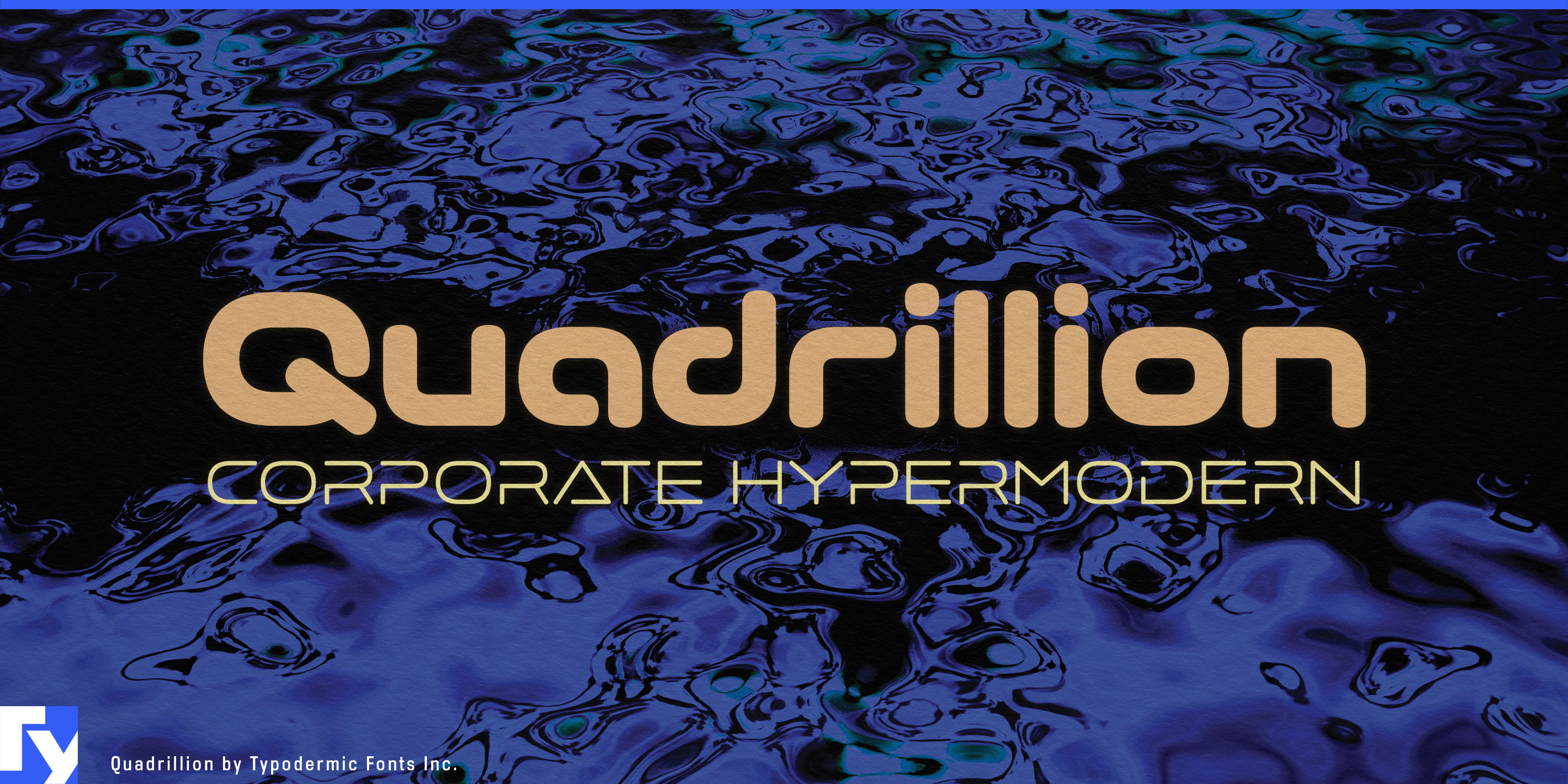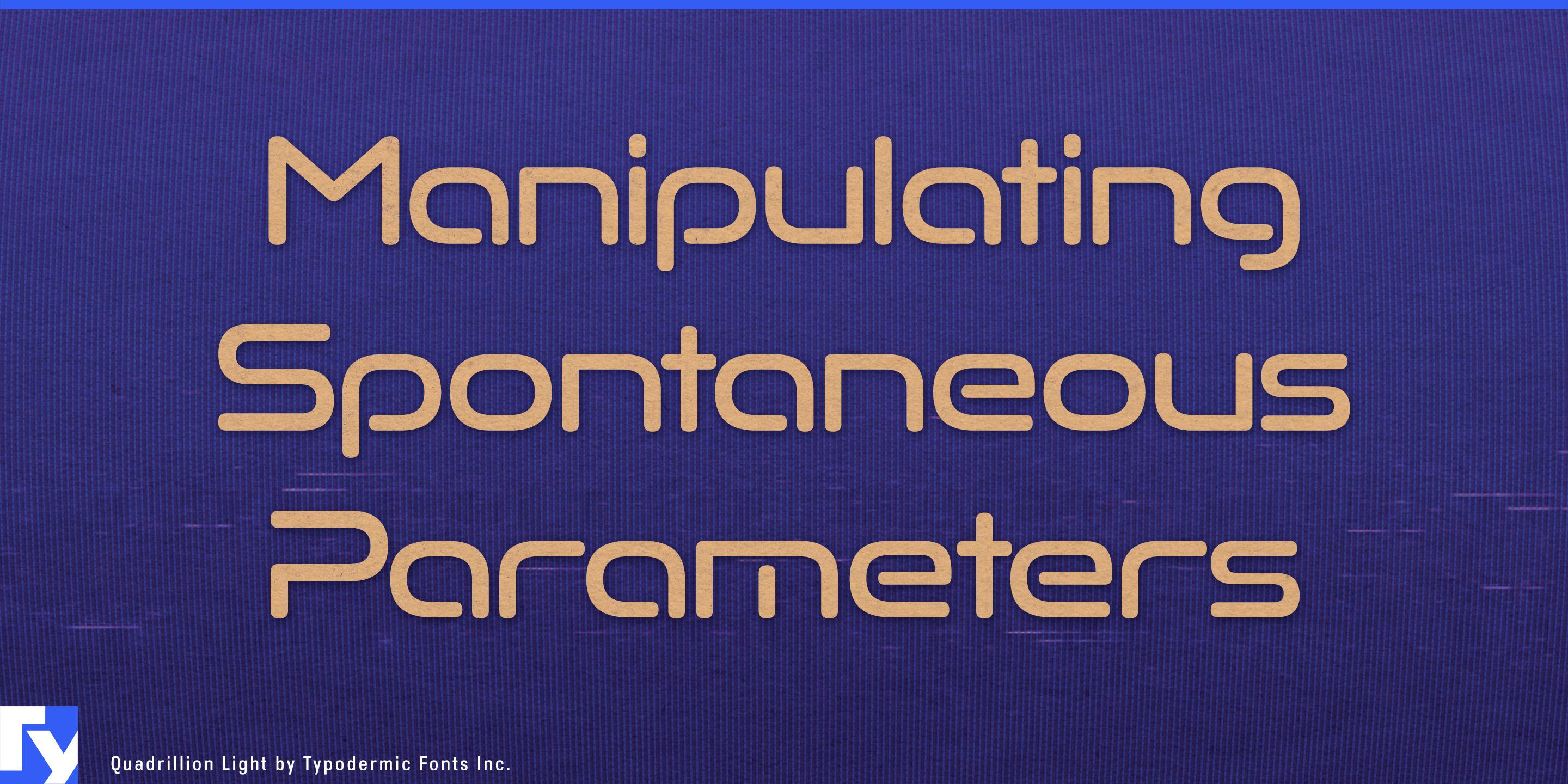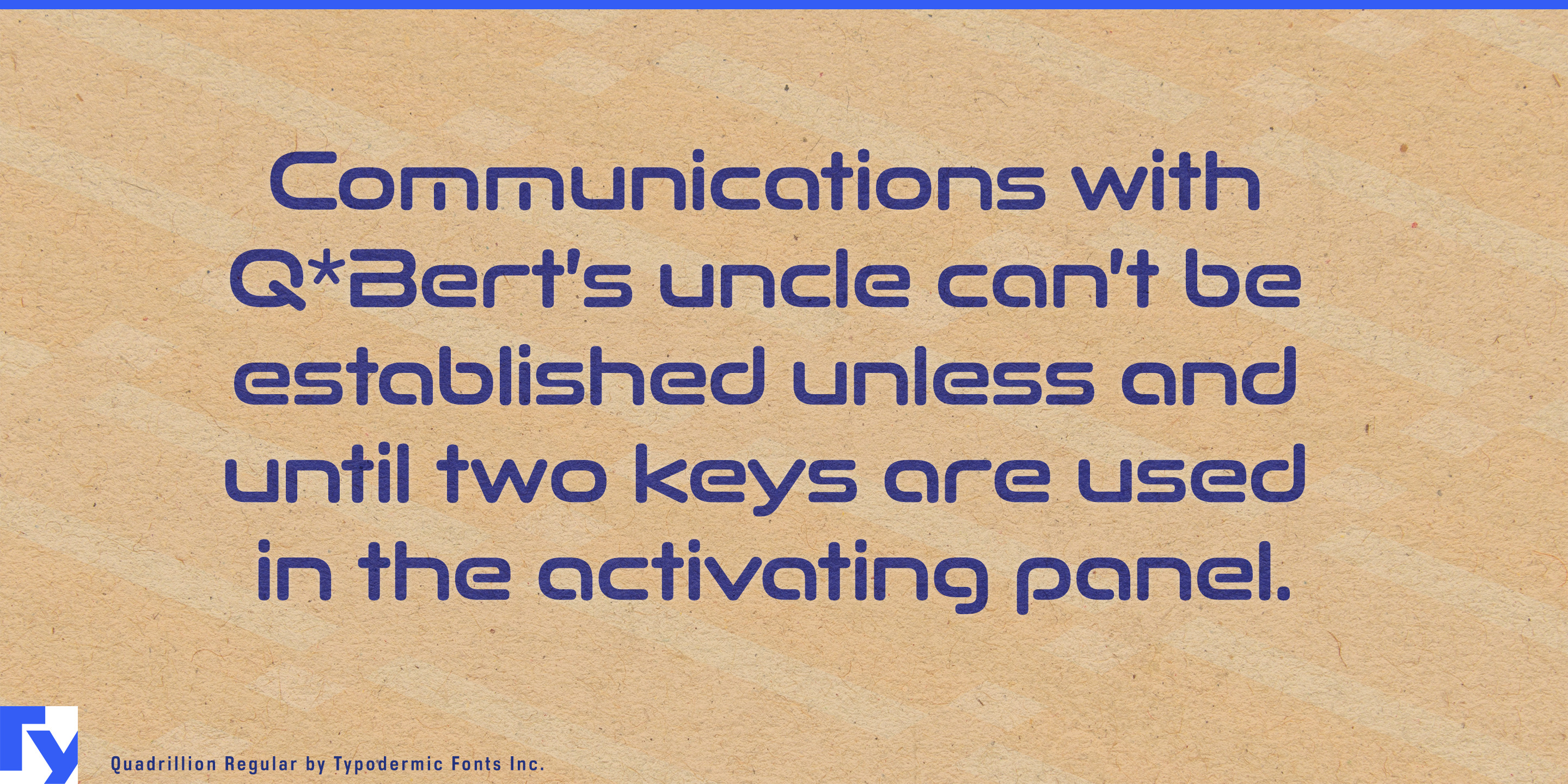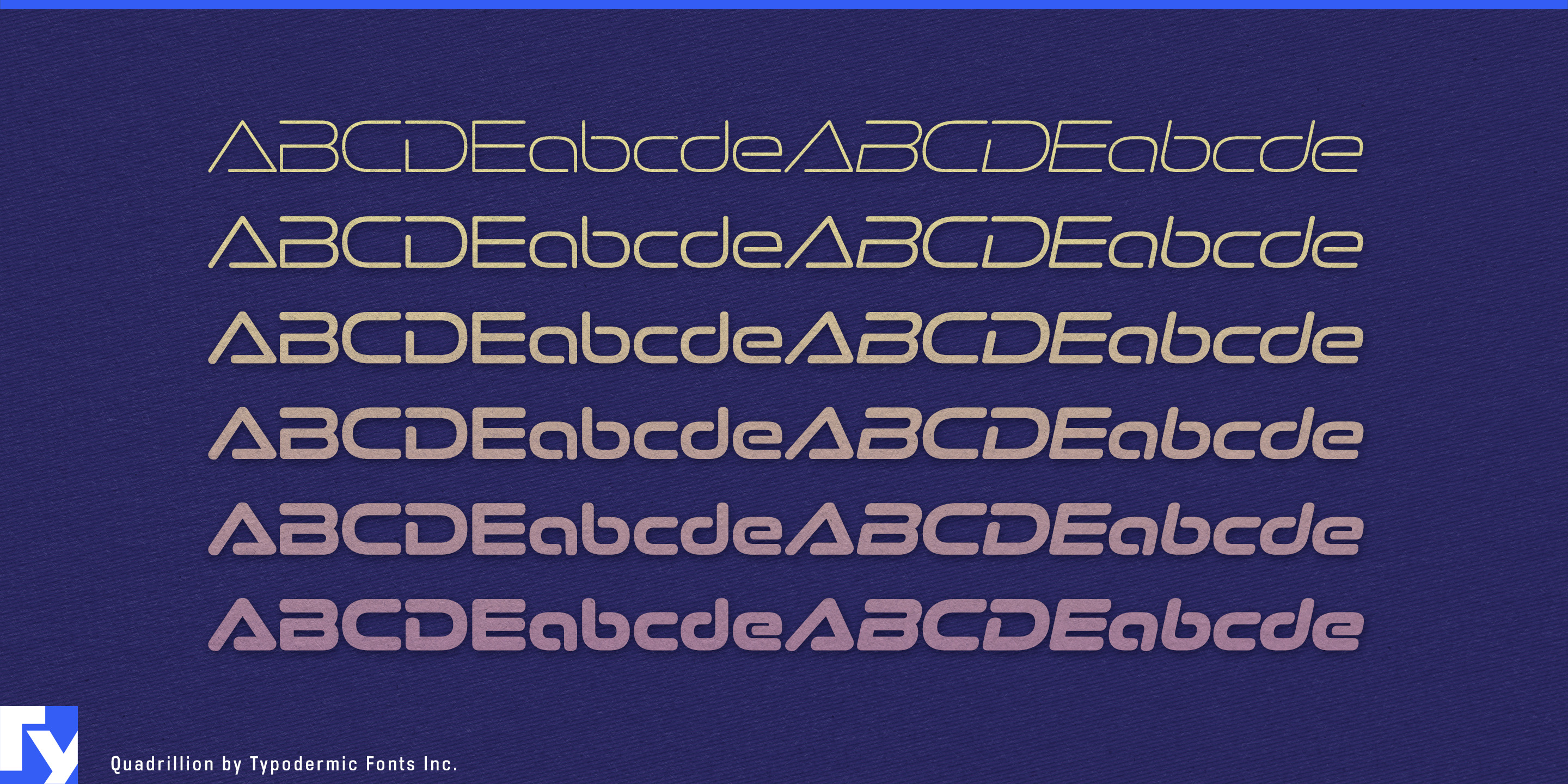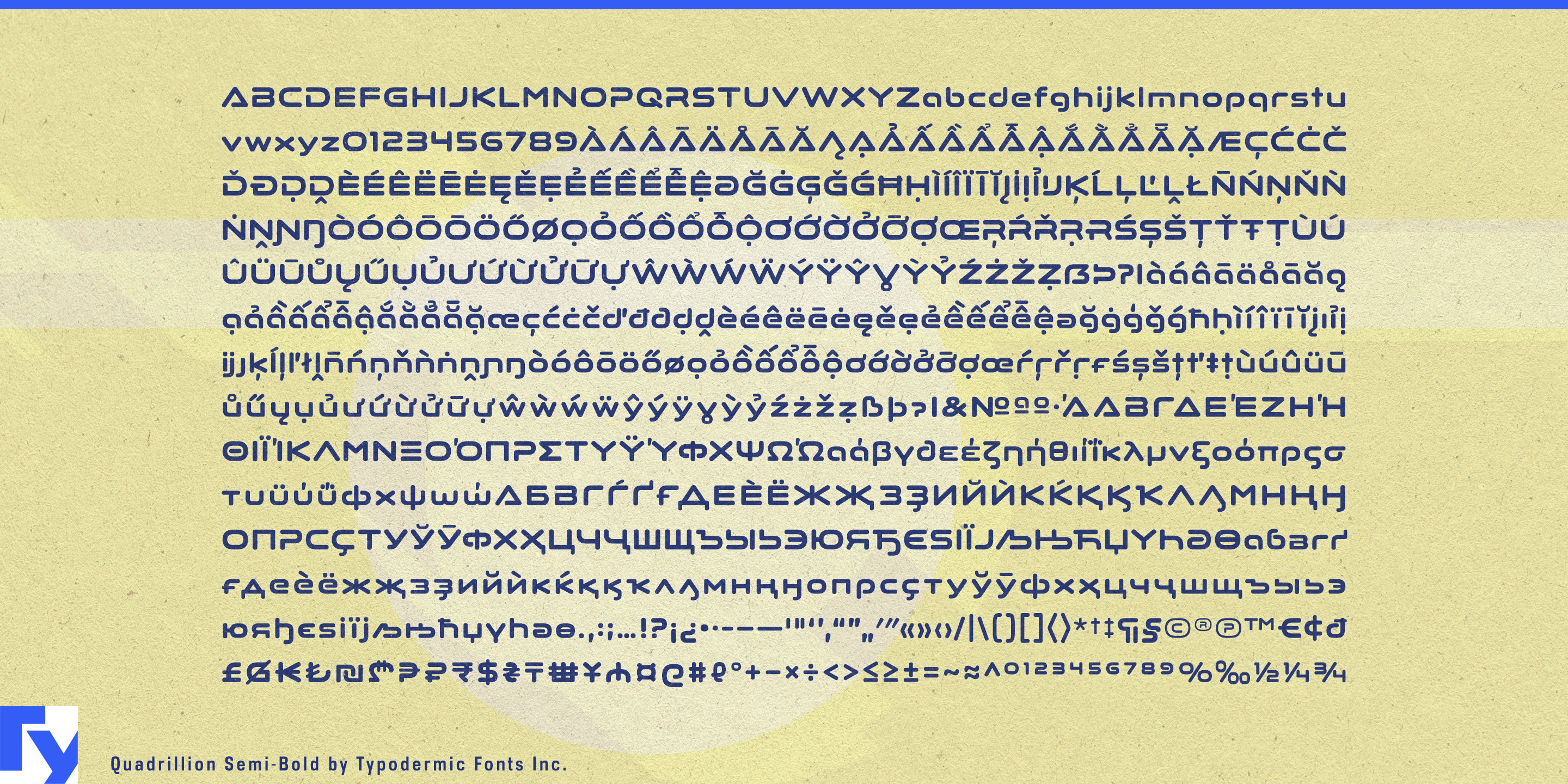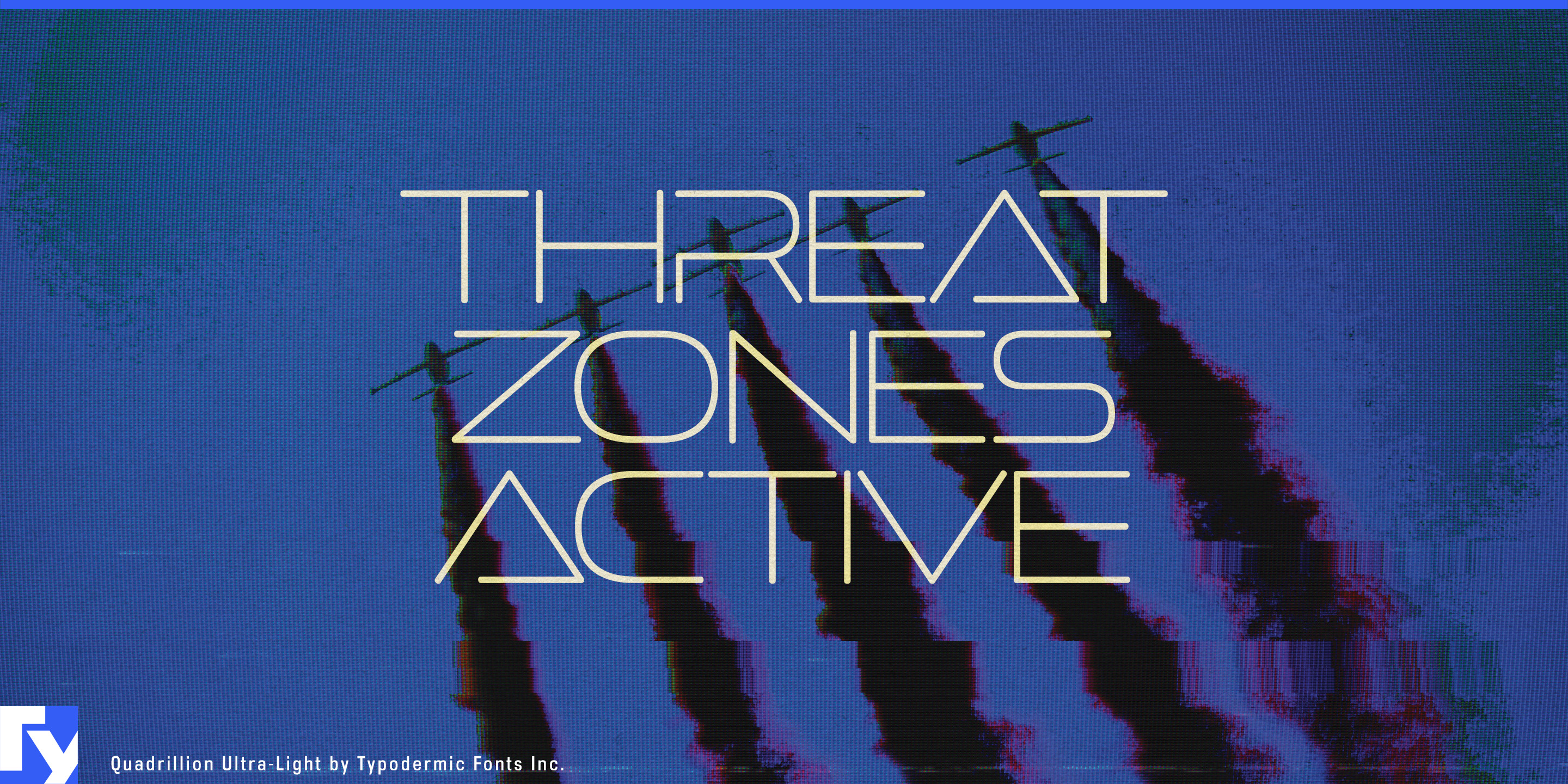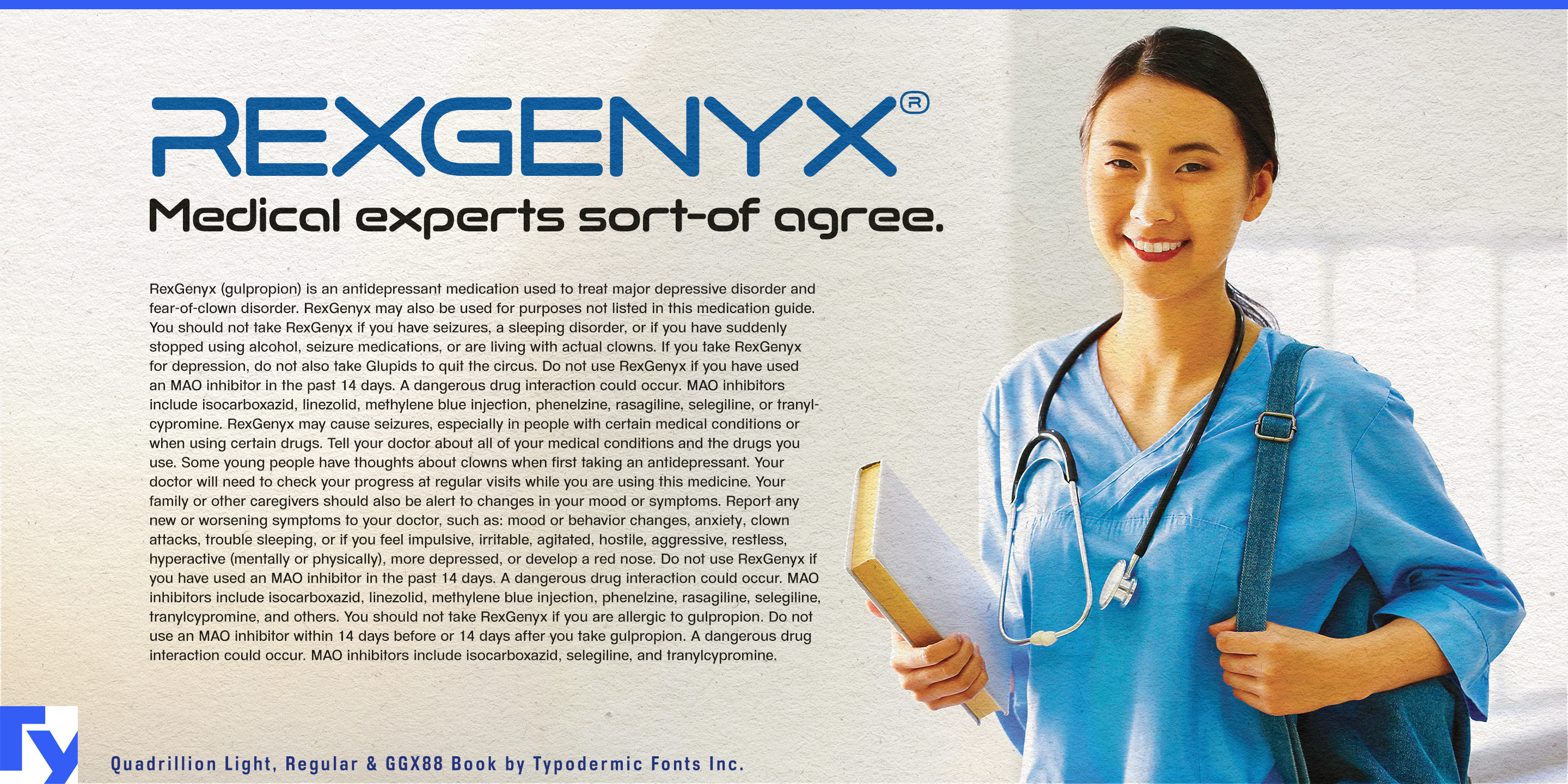
Quadrillion
Quadrillion gives technological typography a different direction from the usual blades, angles, and aggressive mechanical forms. Its broad proportions, capsule-like construction, rounded terminals, and smooth monolinear geometry feel more at home with scanners, laboratory instruments, medical robots, and molded clinical equipment. The result is technological without looking combative: precise, enclosed, clean, and controlled.
Diagnostic imaging is especially strong territory. MRI and CT systems, ophthalmic scanners, dental imaging equipment, ultrasound systems, digital pathology scanners, and body-analysis devices often place sophisticated technology inside smooth, carefully shaped housings. Quadrillion can carry model names on the equipment itself, then extend into product-family graphics, demonstration screens, training materials, medical-device exhibitions, and launch presentations.
Laboratory automation presents a similar opportunity. Sample analyzers, liquid-handling robots, automated microscopy systems, sequencing equipment, specimen-processing machines, and benchtop instruments need identities that communicate advanced science rather than rugged industrial machinery. Quadrillion can give related instruments a consistent visual family across enclosure markings, product literature, conference booths, demo stations, and laboratory-equipment displays.
Medical robotics combines the clinical and mechanical sides particularly well. Rehabilitation systems, robotic surgery equipment, pharmacy automation, hospital delivery robots, assistive devices, and automated laboratory arms increasingly operate close to patients and staff. Quadrillion’s rounded construction suits machines designed to look controlled and approachable rather than formidable.
Life-science and biotech applications can draw on the same forms from another direction. Cell therapy, genomic analysis, regenerative medicine, tissue engineering, biomaterials, and drug-delivery research frequently use imagery built from cells, membranes, droplets, cultures, and molecular structures. Quadrillion’s broad rounded shapes sit naturally beside that visual language in technology-platform names, research-program identities, conference graphics, report covers, investor presentations, and scientific exhibition panels.
Analytical instruments and clinical devices extend the territory further, from spectroscopy and chromatography systems to optical measurement tools, wearable dosing equipment, diagnostic cartridges, and professional dermatology devices.
Quadrillion is a display face for science and medicine where advanced technology takes physical form. On a scanner housing, laboratory robot, diagnostic system, medical-device booth, or regenerative-medicine presentation, its wide capsule geometry can make the technology feel sophisticated without borrowing the visual language of weapons, racing, or aerospace.